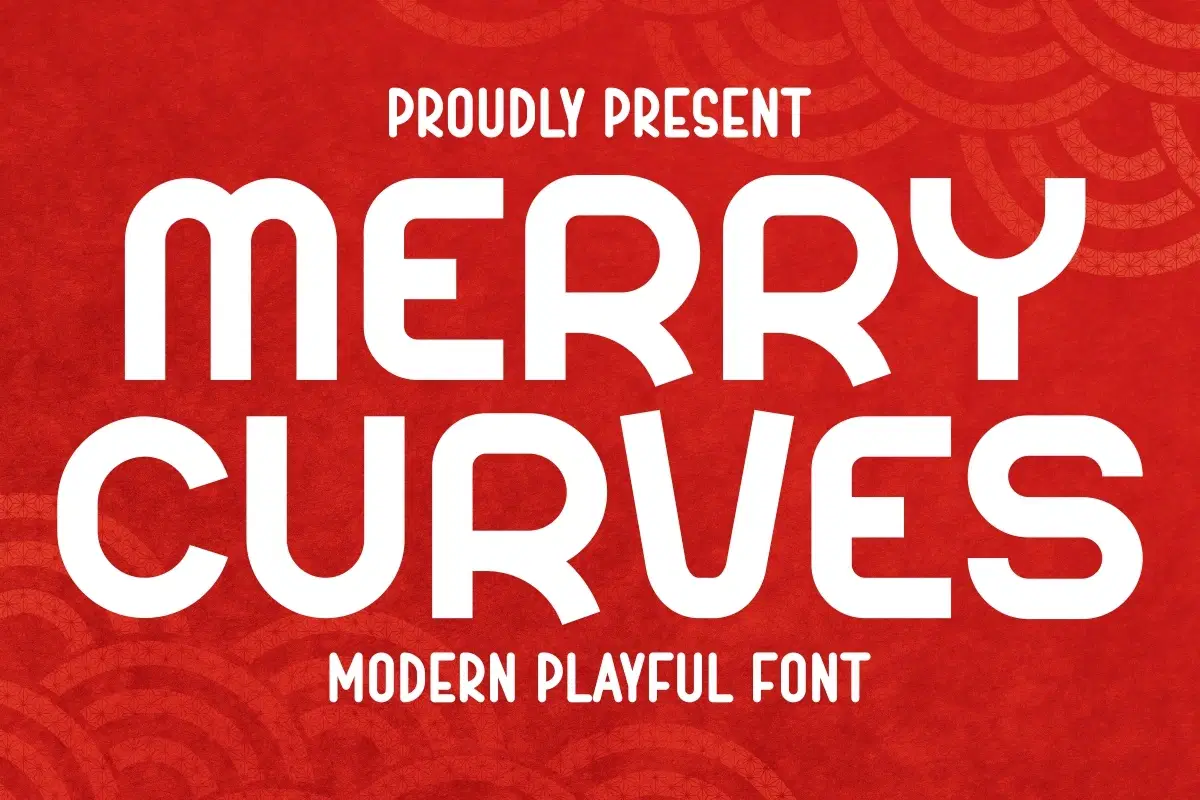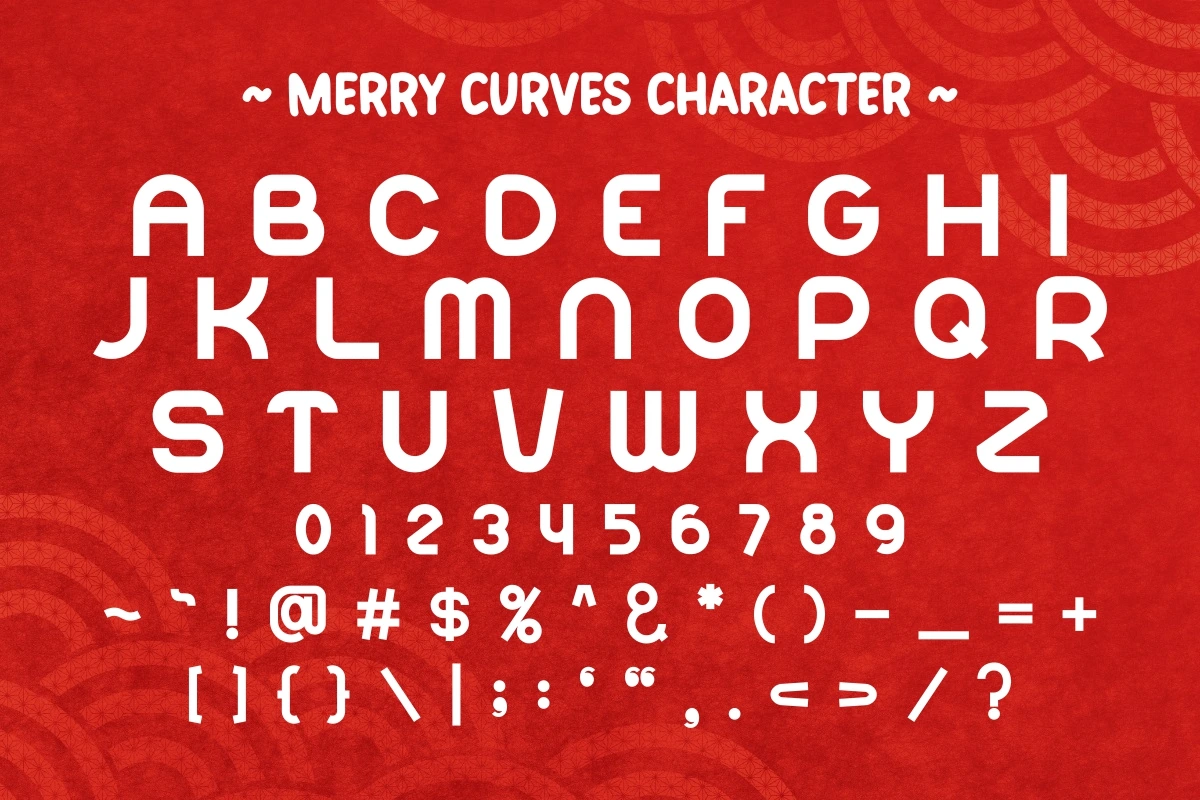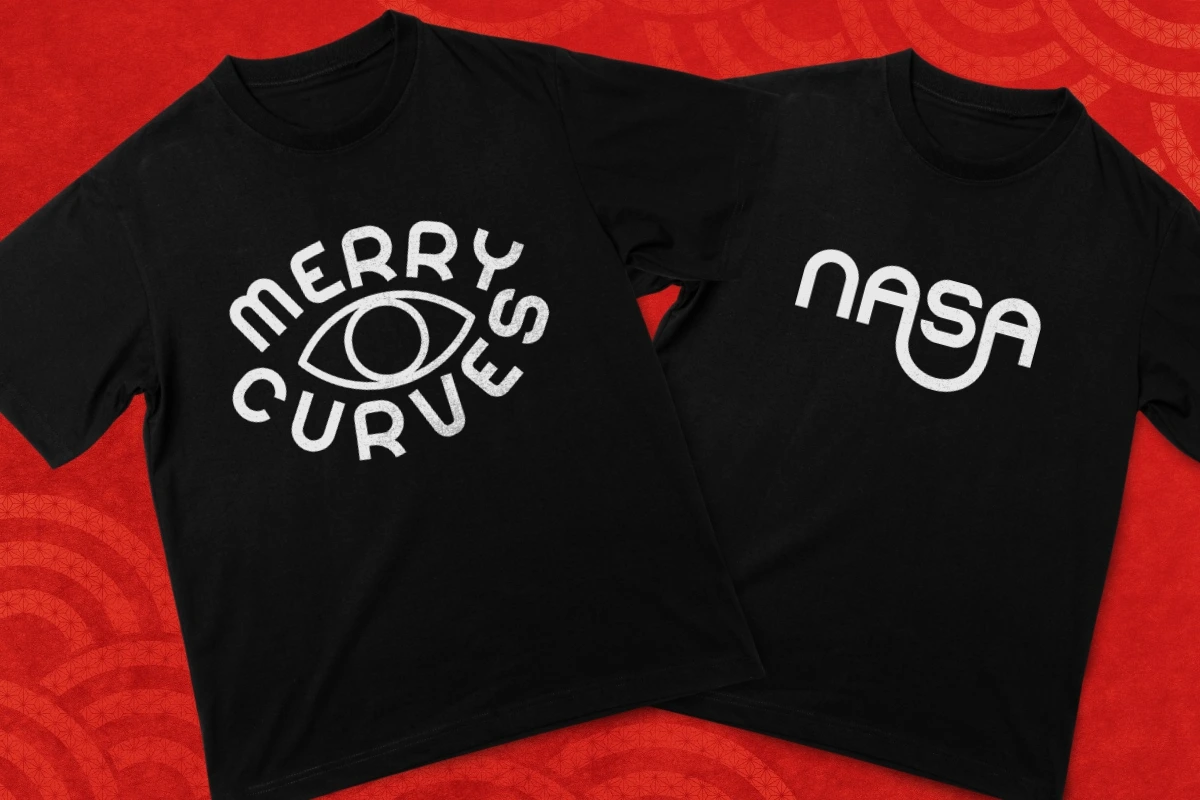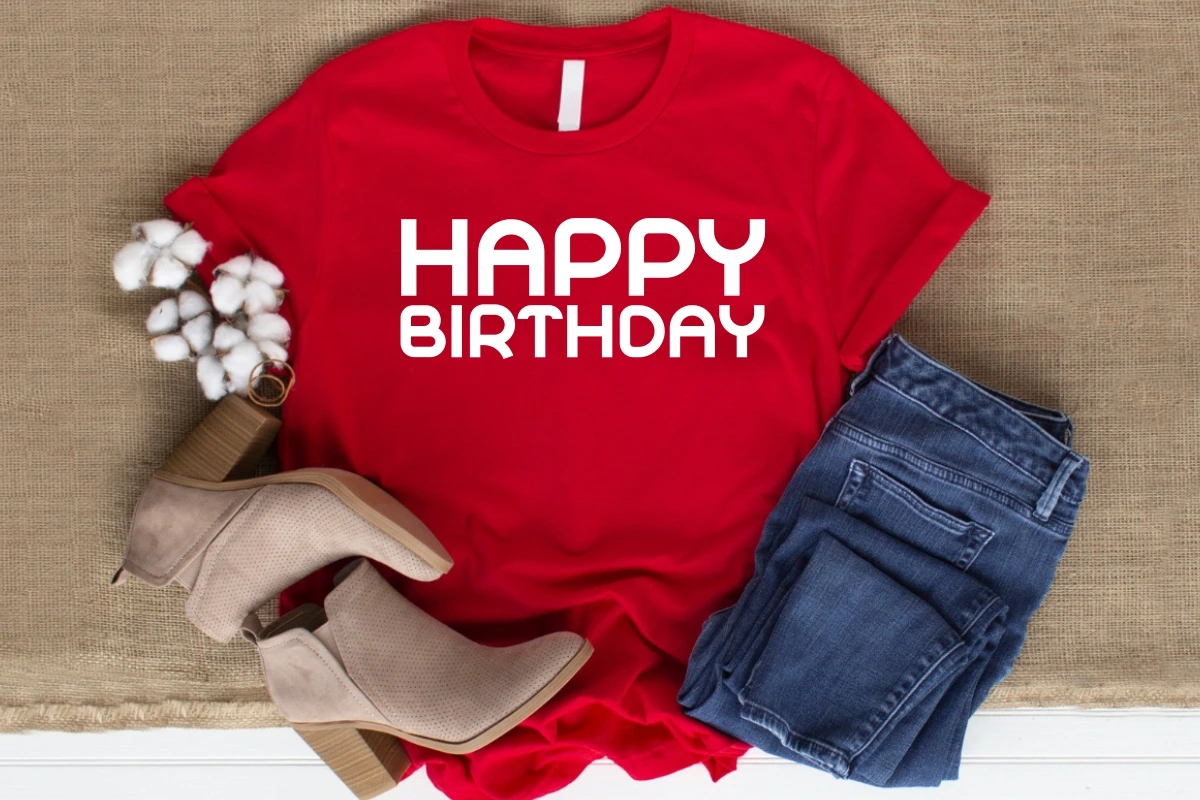
Merry Curves is a captivating display font designed to infuse the spirit of Christmas into your creative projects. This unique typeface features delightful and whimsical curves, adding a touch of holiday cheer to your designs.